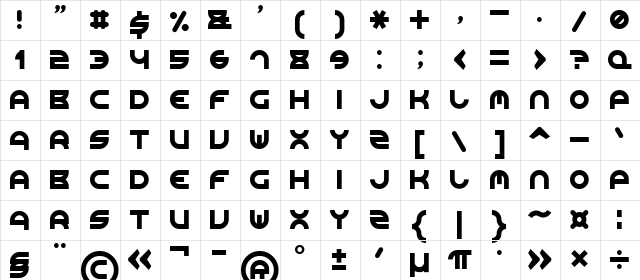
Rounded Line 7 Regular
Design Context for Rounded Line 7 Typeface
Rounded Line 7 softens its letterforms with rounded terminals, giving it an approachable, friendly quality that works well in consumer-facing and digital contexts.
Well-suited to UI design, mobile interfaces, and any brand that wants approachability without sacrificing clarity.
Font Pairing: Pairs well with a rounded or humanist sans for body copy, maintaining the friendly tone without relying on Rounded Line 7 to carry extended reading.
Pro Tip: Use Rounded Line 7 for UI elements, app interfaces, and anywhere a friendly, approachable tone needs to be maintained without sacrificing clarity.